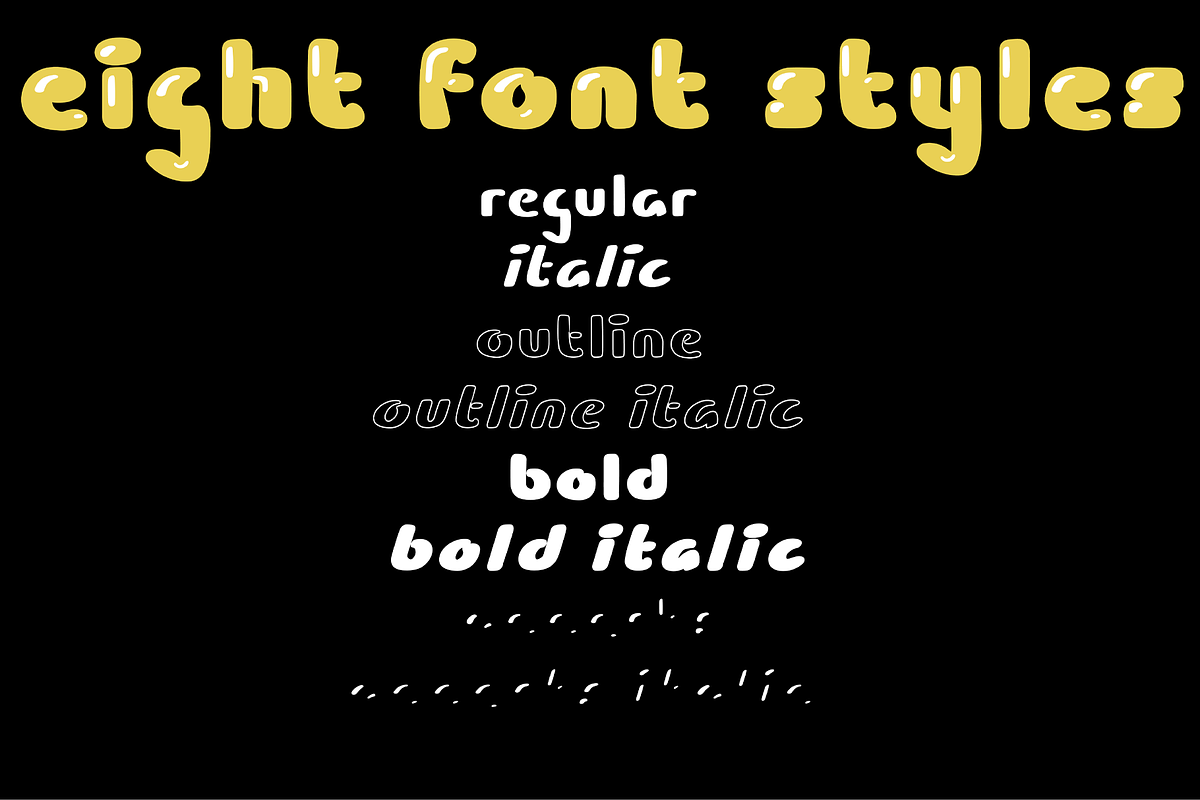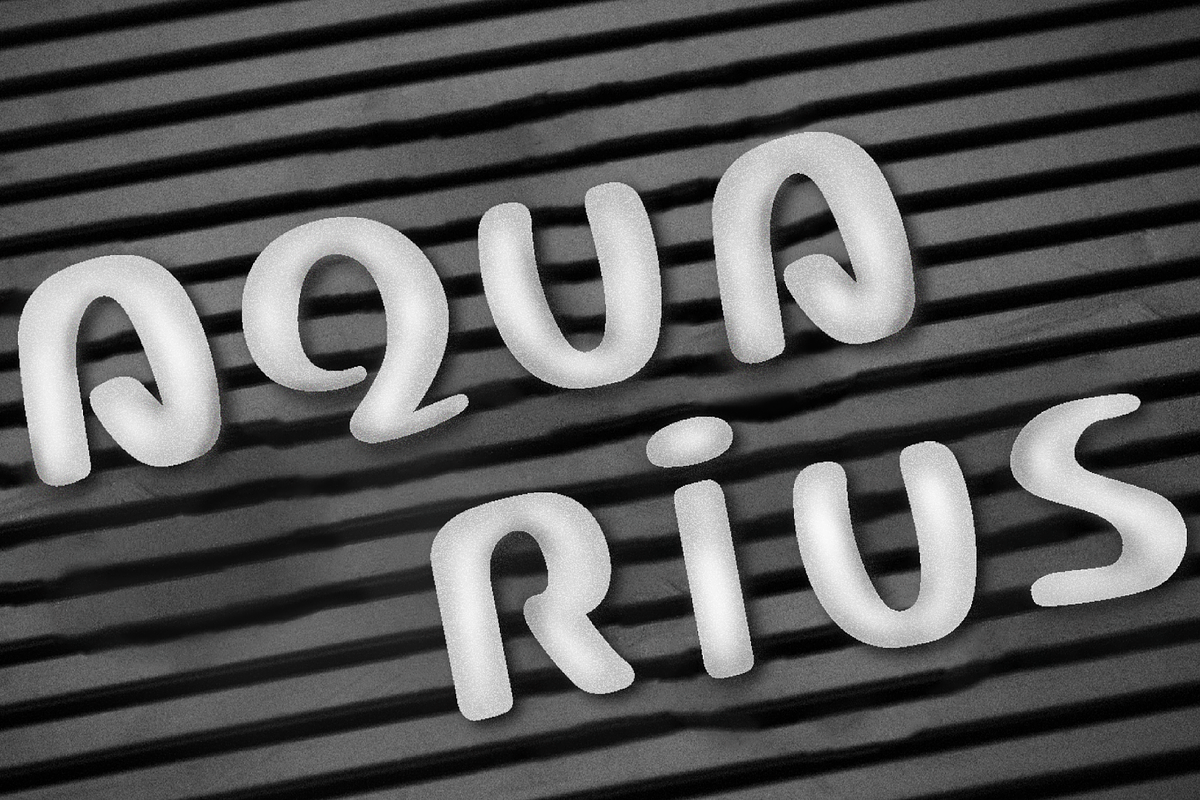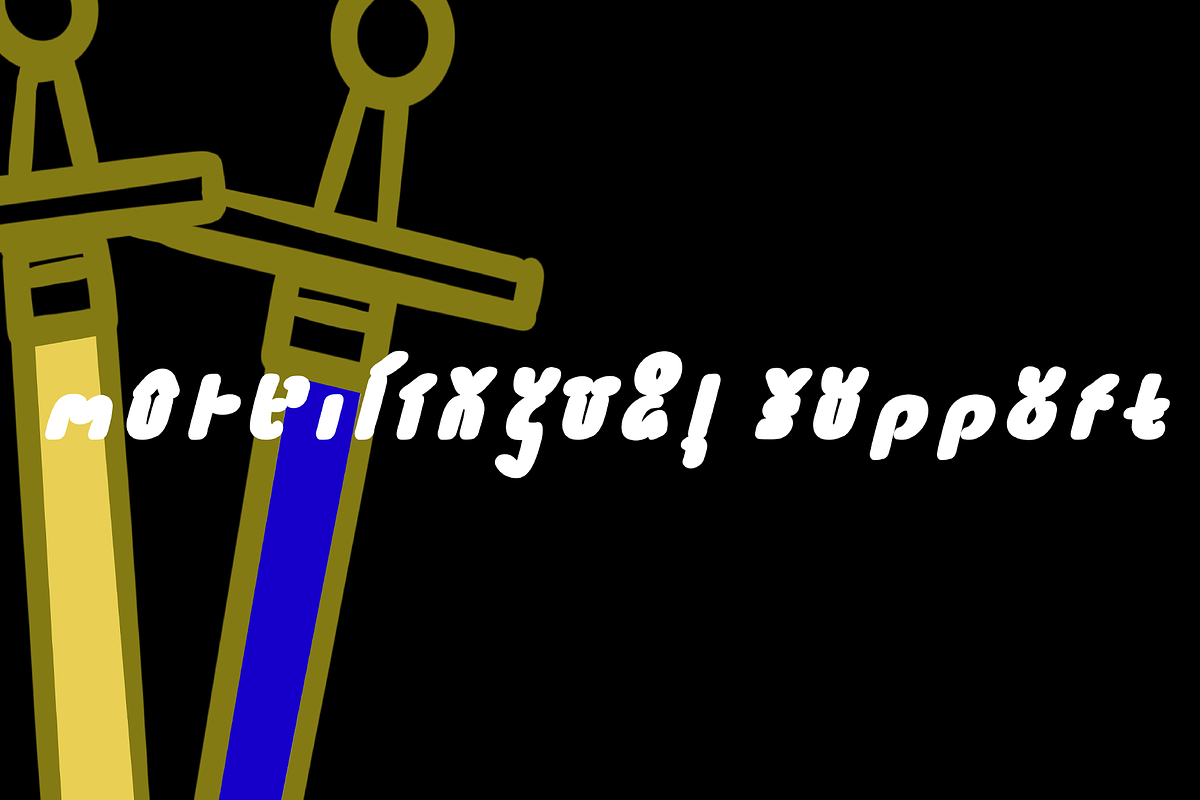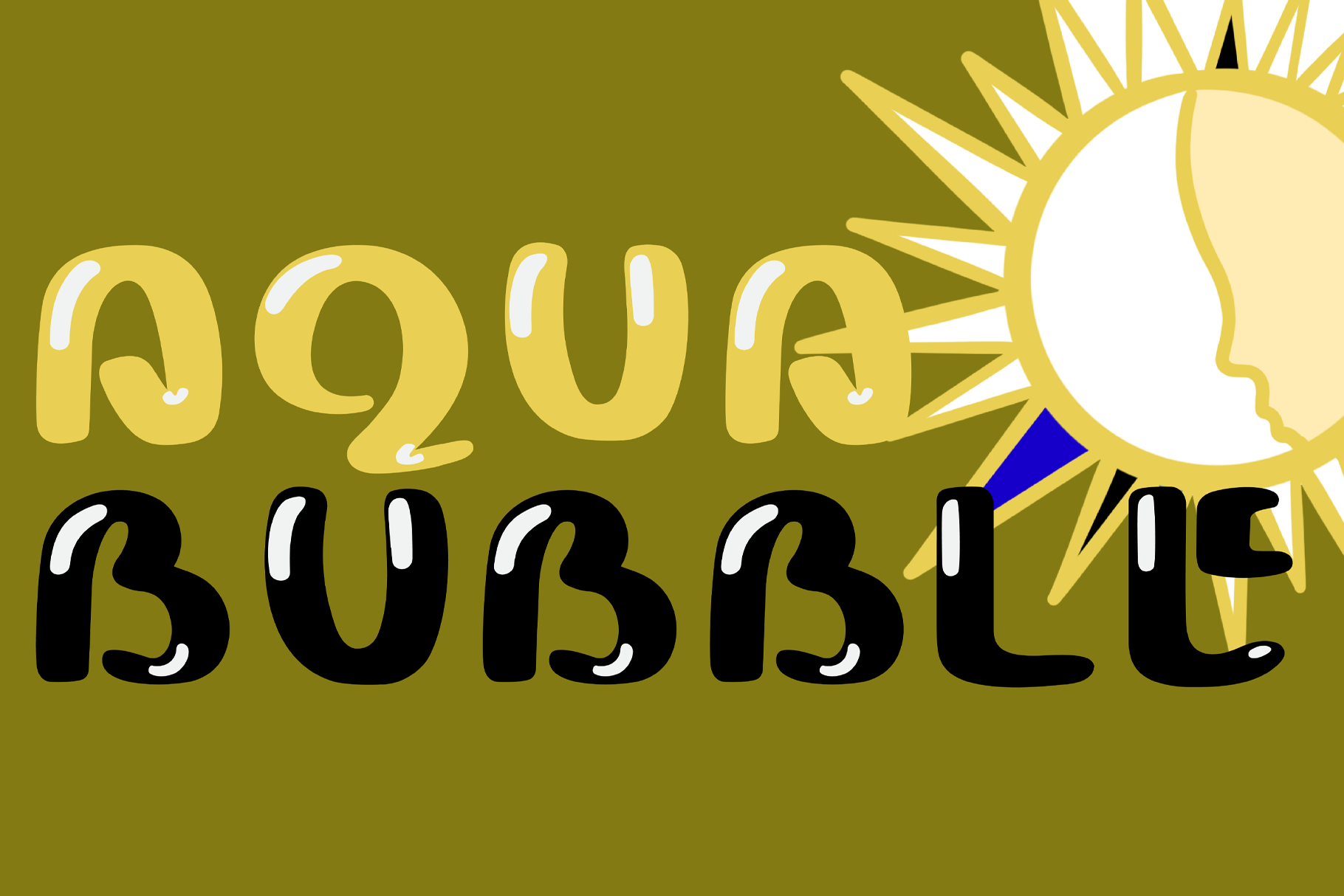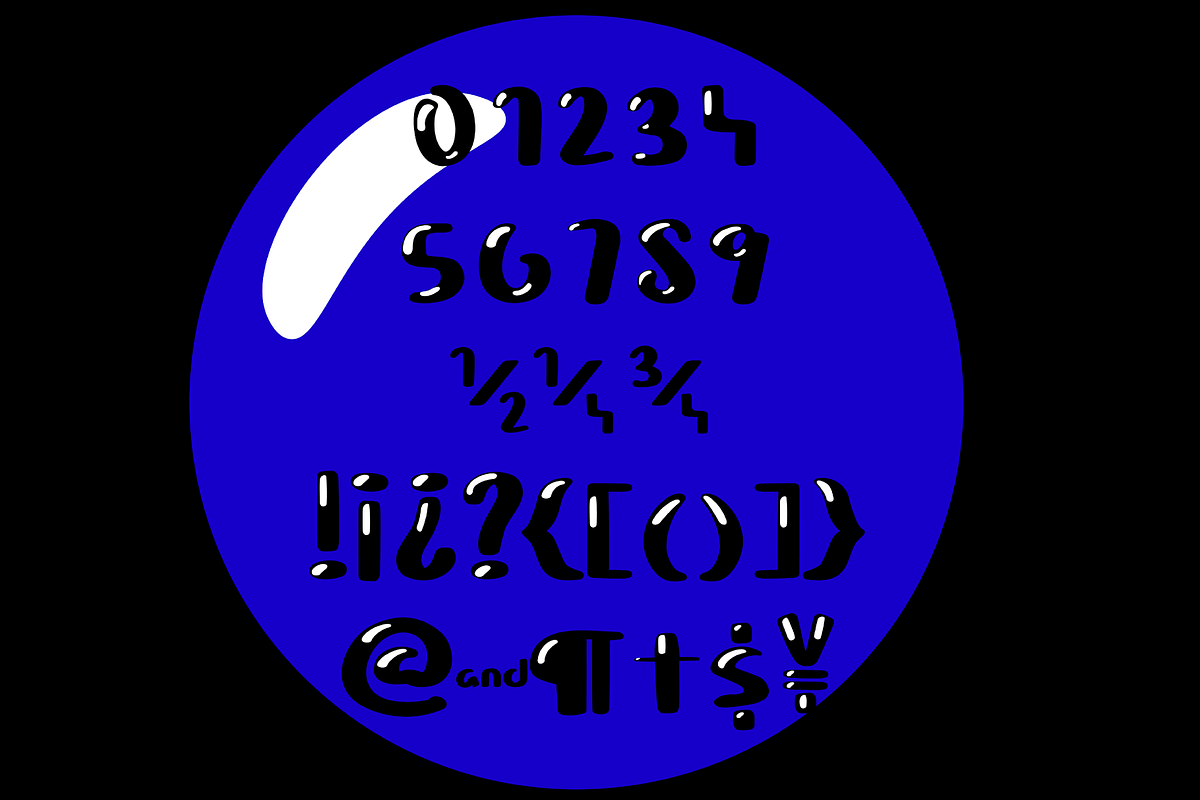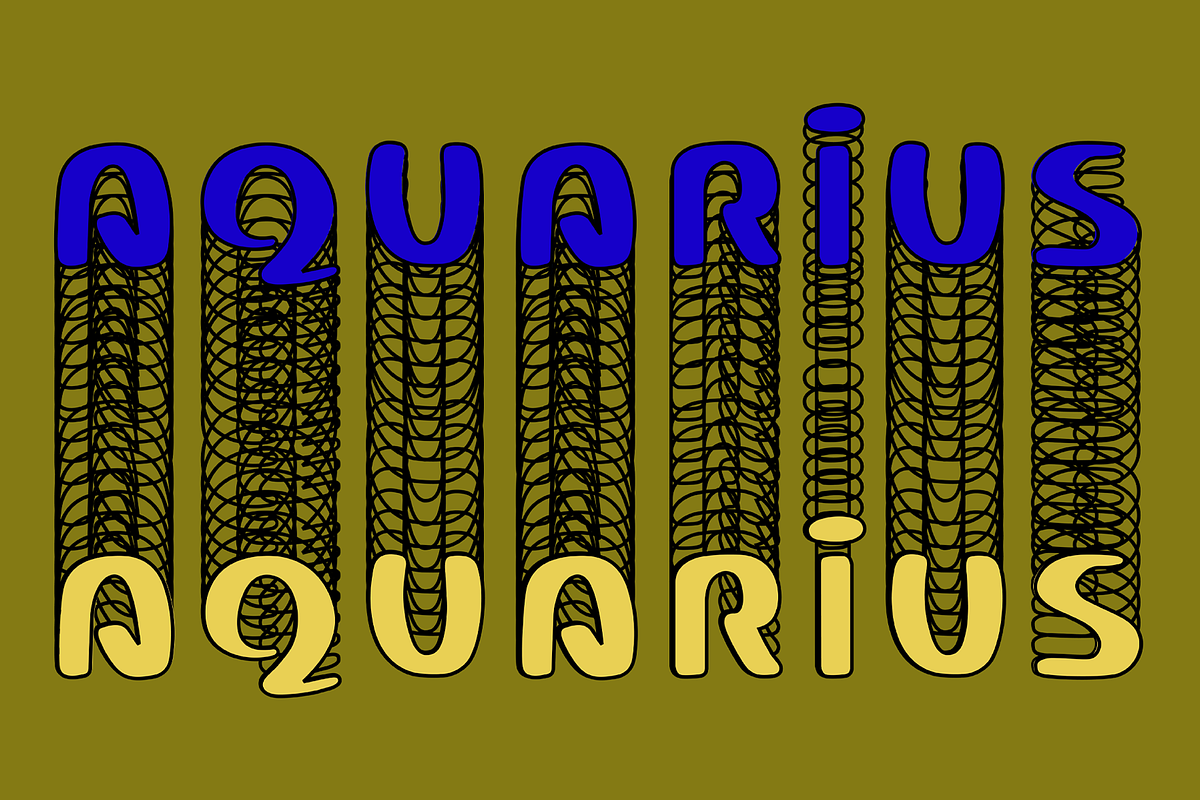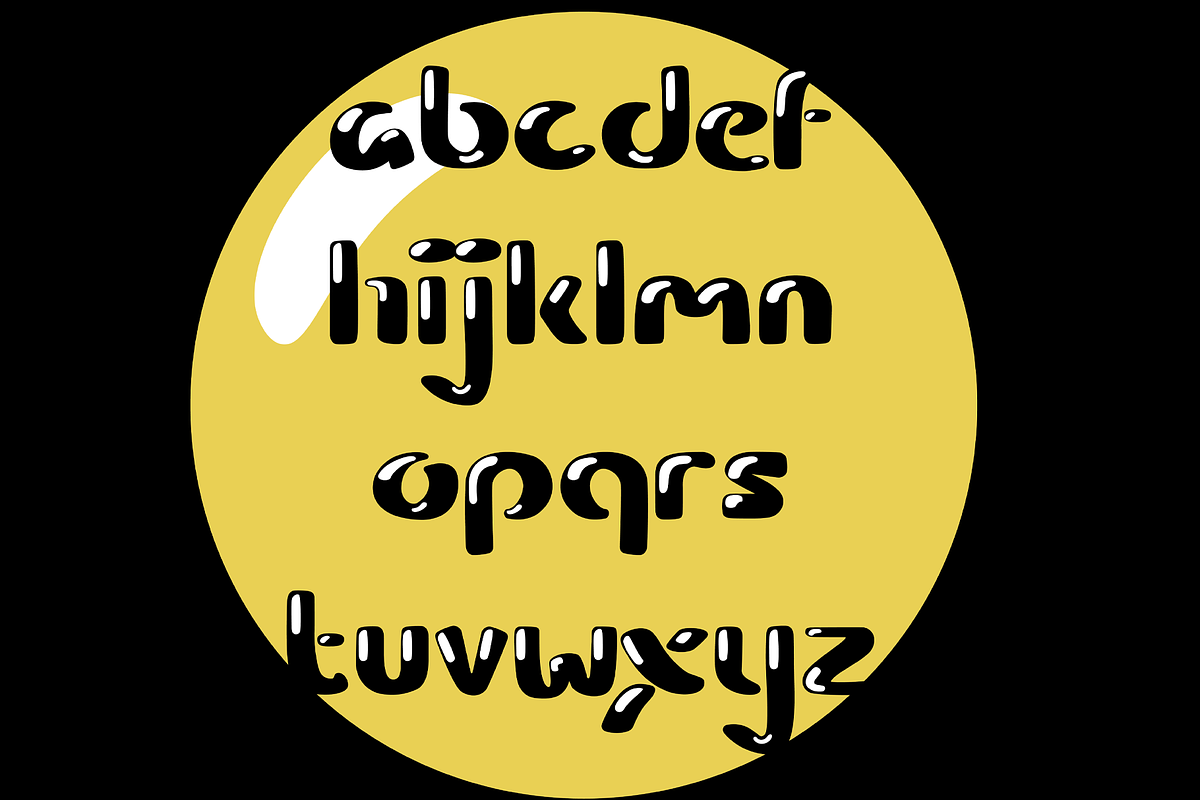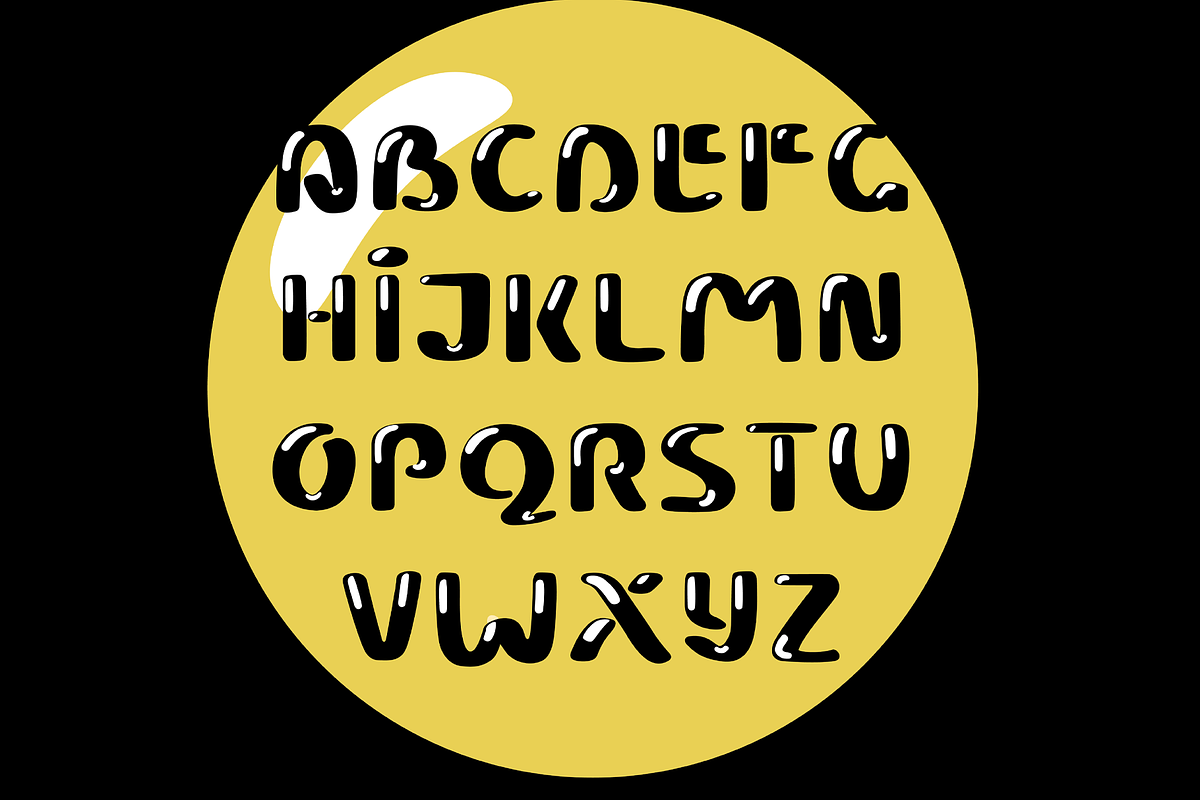
Aqua Bubble Typeface
Aquarian Bubble is a stackable font that's perfect for any project that needs quirk, youth, or fun without being illegible or exaggeratively dramatic. It comes with eight styles to suit any aesthetic or occasion.
With a glyph count of 433, Aquarian Bubble supports most western languages.
Included in all fonts: uppercase, lowercase, punctuation, numerals, symbols, and multilingual support.